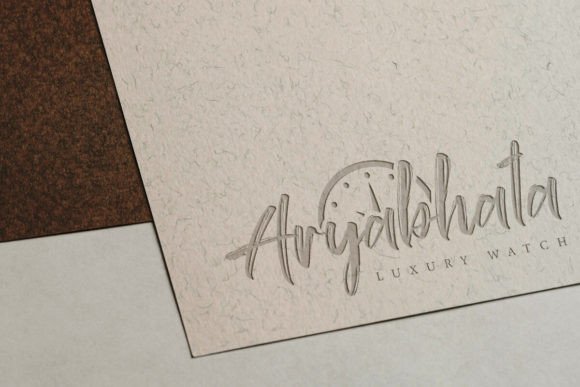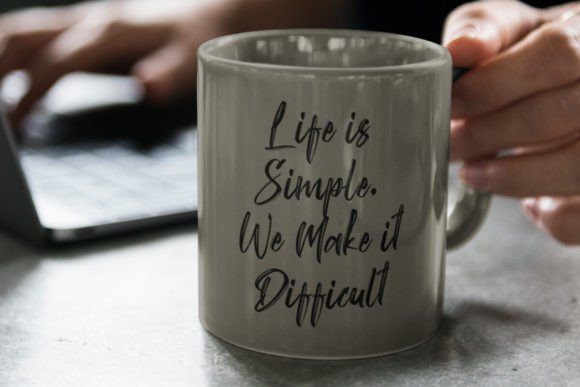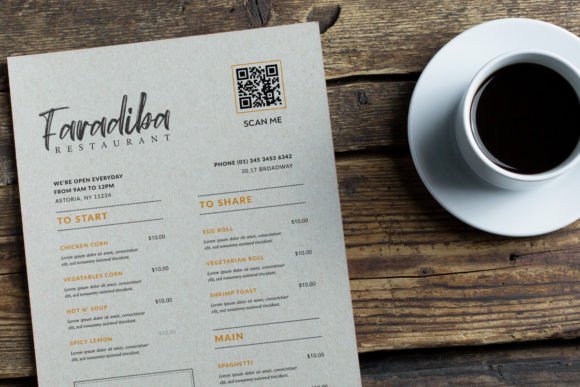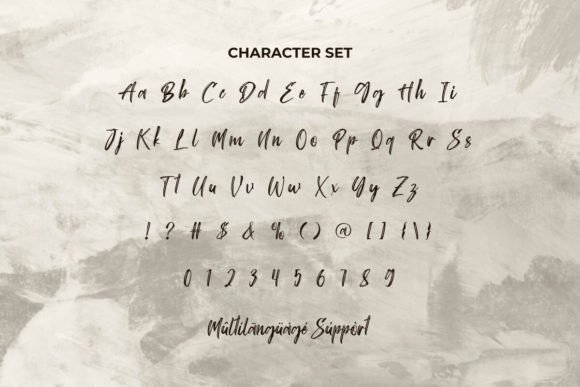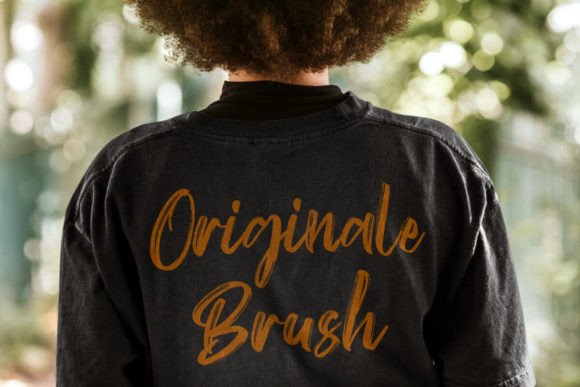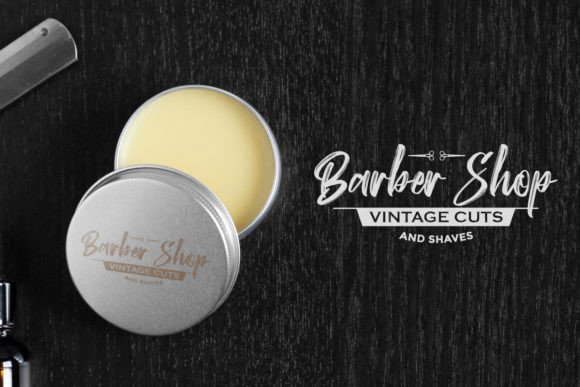
Introduction to Originale Brush Font Font
Fonts play a crucial role in design, and the Originale Brush Font font is a typeface that brings both character and versatility to any project. Whether you’re working on a branding project, a website, or a print design, the Originale Brush Font font offers a unique style that can elevate your work.
Originale Brush Font is a textured vintage theme brush script font.
This handcrafted typography has a unique effect like the brush strokes of paint attached to each character making it feel authentic It will be perfect for any industry, such as accessories, artists, barbers, café, clothing, event organizers, fashion designers, fitness centers, glassware, graphic designers, handicrafts, printing, publishing, restaurants, sports, and many more.
The Originale Brush Font font is more than just a typeface – it’s a design tool that helps you communicate your message with style and clarity. Its unique character set and versatile design make it suitable for a wide range of applications, from elegant invitations to bold headlines.
With its carefully crafted letterforms and balanced proportions, the Originale Brush Font font ensures readability and visual appeal across all mediums.
The Originale Brush Font font stands out with its unique design, exceptional readability, and versatility across various design applications.